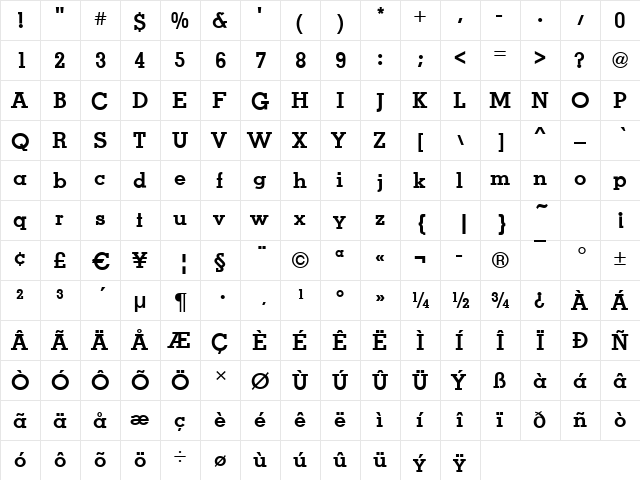
Missouri-Medium Regular
Design Context for Missouri-Medium Typeface
Missouri-Medium offers clean, dependable letterforms without strong stylistic allegiance, making it a practical choice for designers who need flexibility.
Pro Tip: Use Missouri-Medium in both headline and body roles to test its range before committing to a single application.